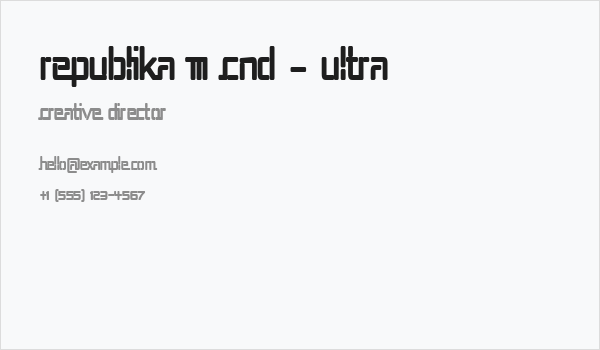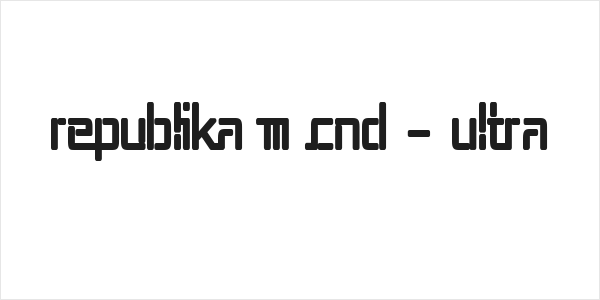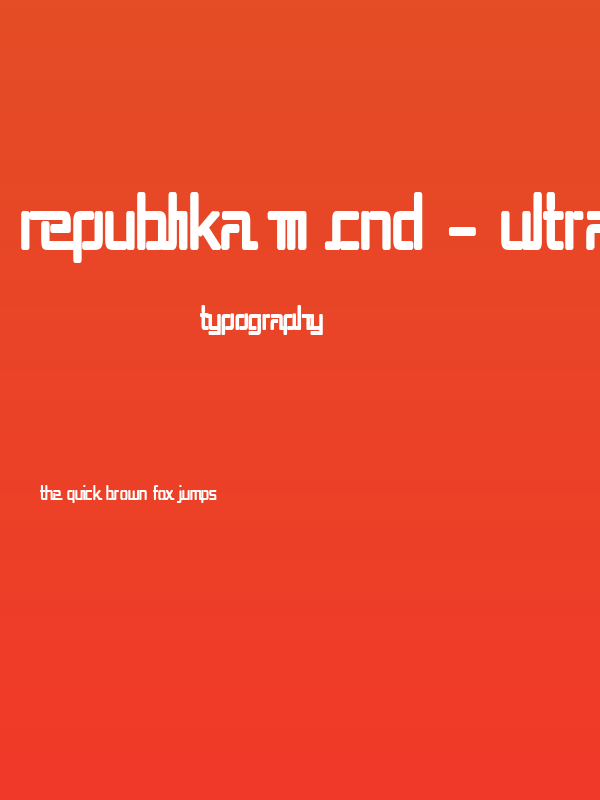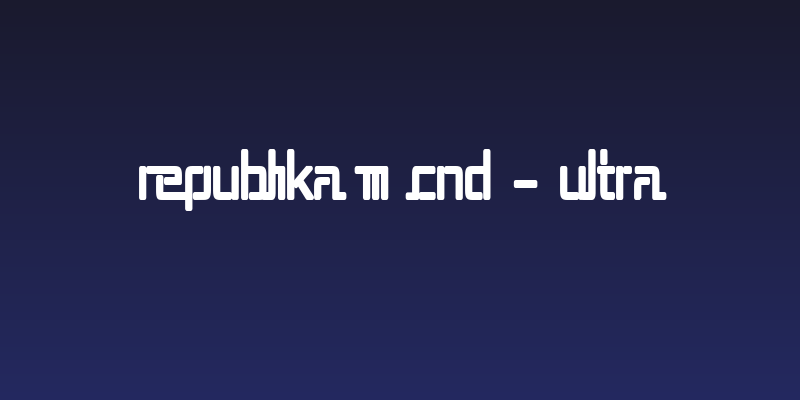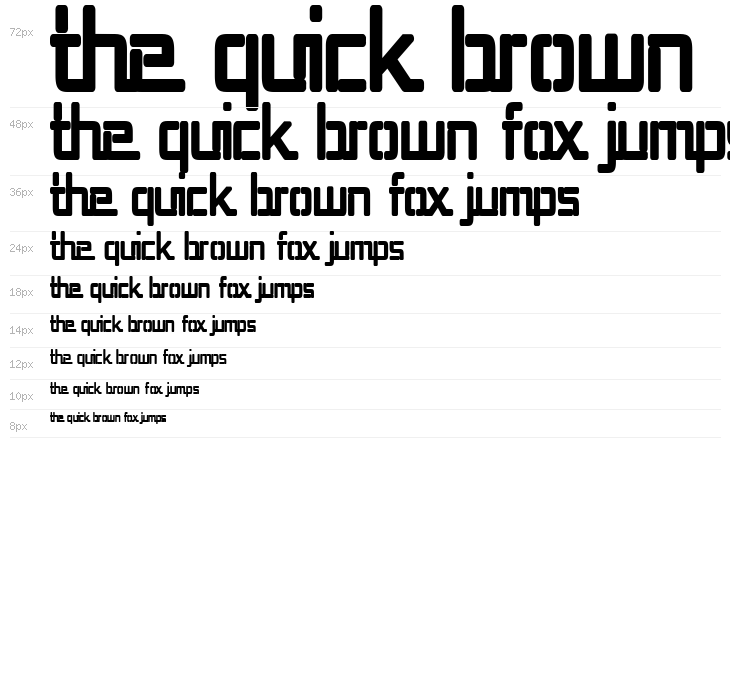
Republika III Cnd - Ultra Font
Republika III Cnd - Ultra Description
This font features a bold, geometric design with a distinctly modern and futuristic aesthetic. The characters are constructed with thick, uniform strokes and rounded corners, giving them a blocky yet smooth appearance. The uppercase and lowercase letters maintain a consistent height, contributing to a cohesive and streamlined look. The numerals and special characters are designed to match the overall style, ensuring visual harmony across all elements. This font's condensed width allows for efficient use of space, making it suitable for various design applications where a modern and impactful presence is desired.
| Proposed Projects | Ideal for technology branding, sci-fi themed designs, posters, and digital interfaces. |